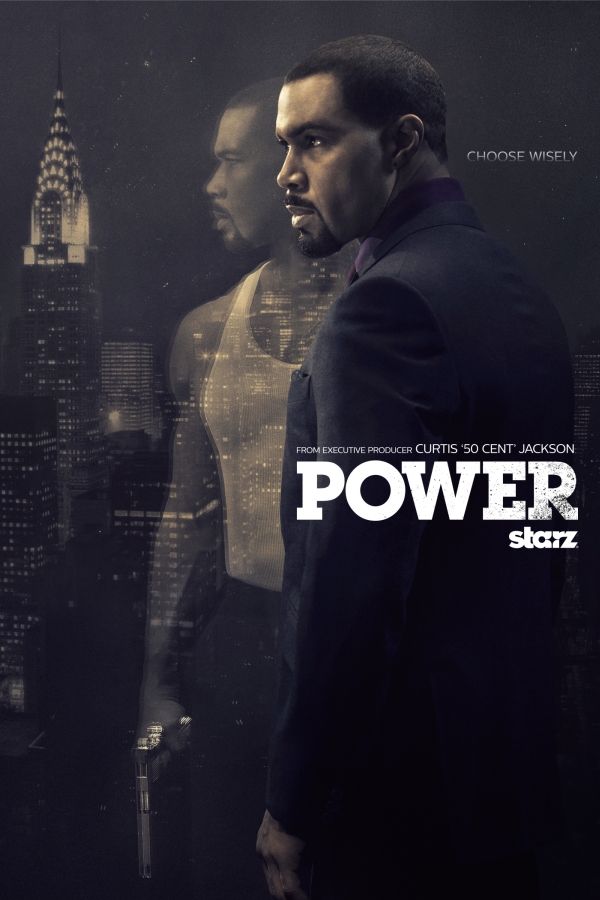
Power Font
CrimePower is a popular American crime drama television series that premiered in 2014. It follows the life of a wealthy nightclub owner who moonlights as a drug kingpin, and his efforts to balance his criminal empire with his personal life.
The logo of the TV series likely uses ITC Lubalin Graph Bold font, a geometric slab serif designed by Herb Lubalin. You can find more information about it here.